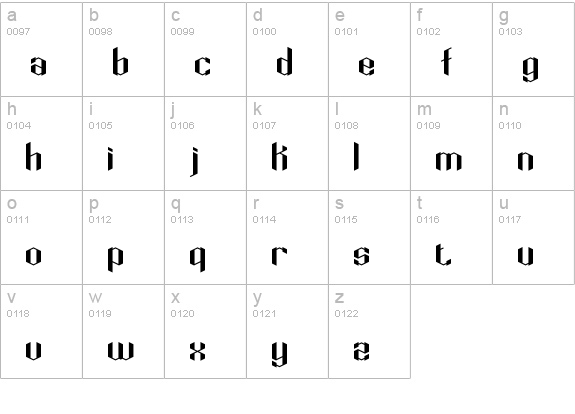
Key Ridge BRK Font Details
Key Ridge BRK font is a versatile and stylish typeface that combines modern elements with a classic touch. With its bold and distinct letterforms, this font is perfect for creating eye-catching designs for various projects. Whether you're working on a branding campaign, poster design, or website layout, Key Ridge BRK font will add a touch of sophistication and elegance to your work. What makes Key Ridge BRK font even more appealing is that it is available for free download at FontsMarket.com. This means that you can easily access this stunning font without any cost, making it a valuable addition to your font collection. Don't miss out on the opportunity to enhance your design projects with the unique charm of Key Ridge BRK font. Download it today and let your creativity shine!